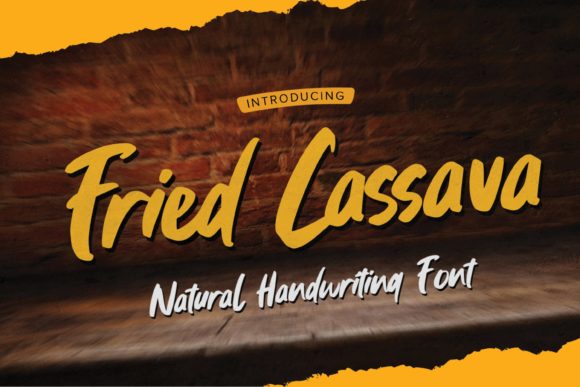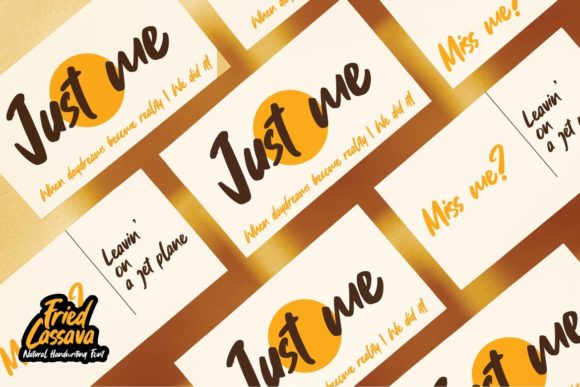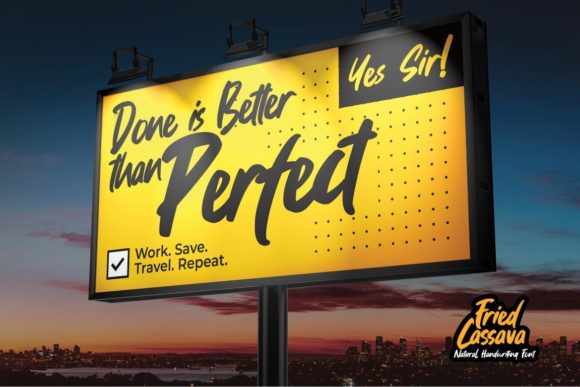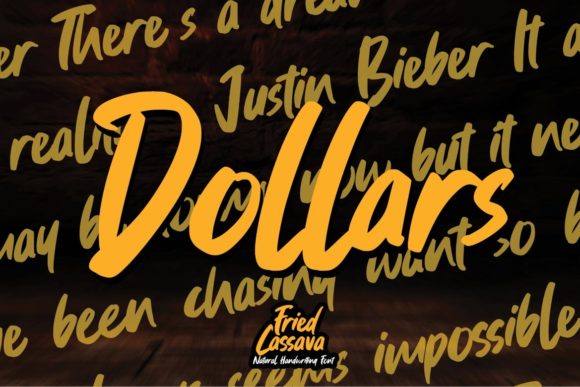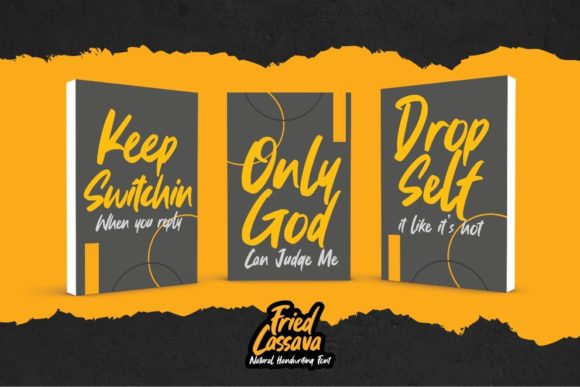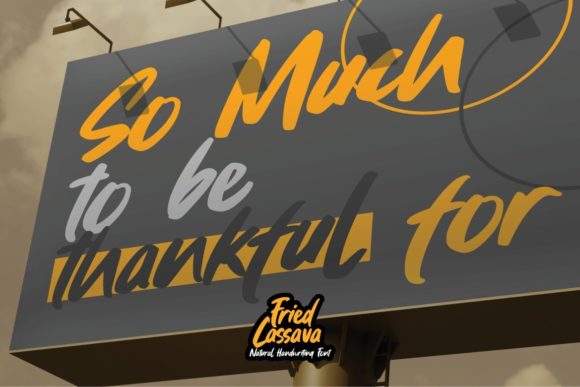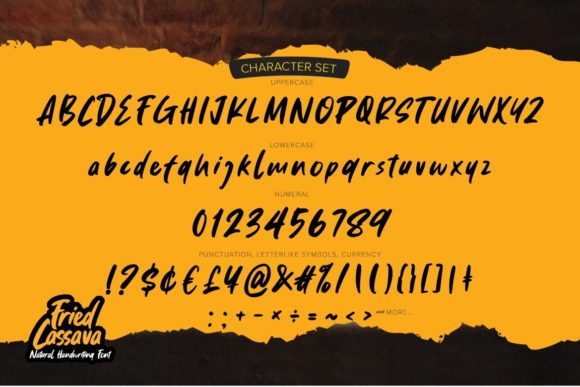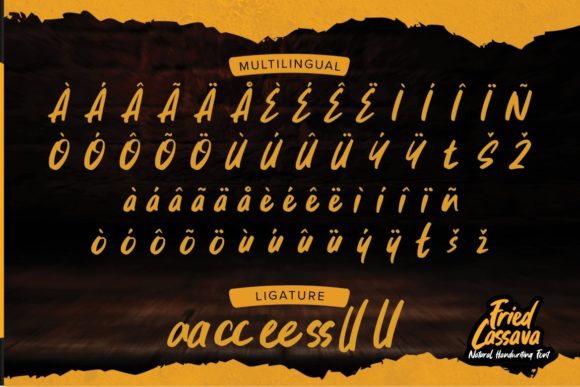
Fried Cassava Font
About Fried Cassava Font
Fried Cassava is a bold and flowing handwritten font that looks so unique and playful. It is the perfect choice for creative projects that require stylish and different typography!